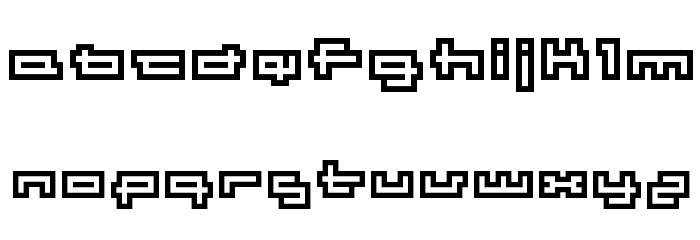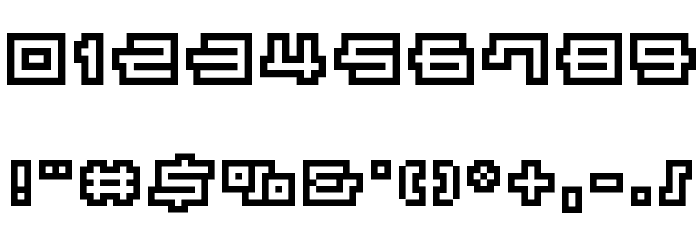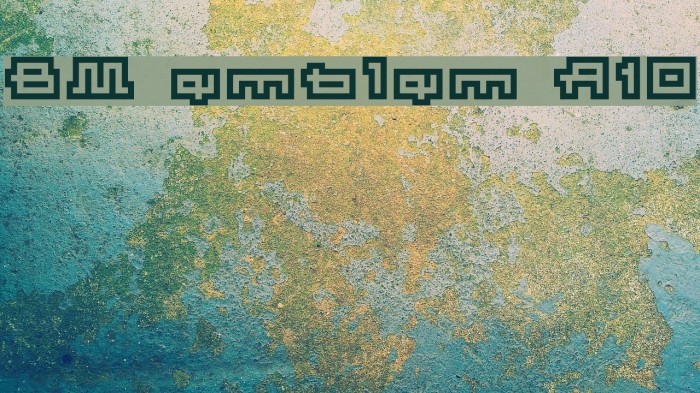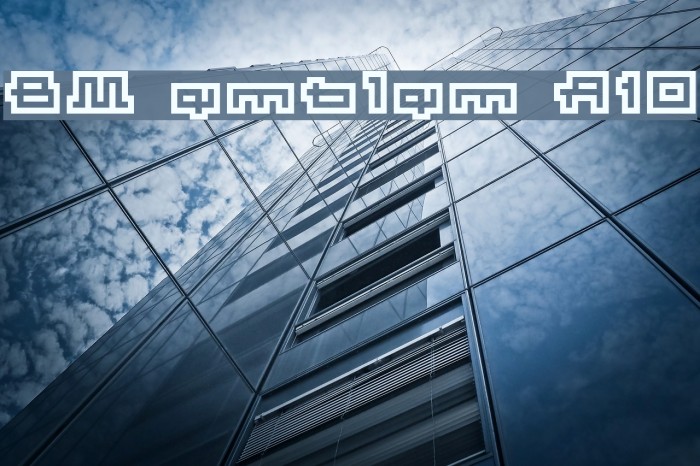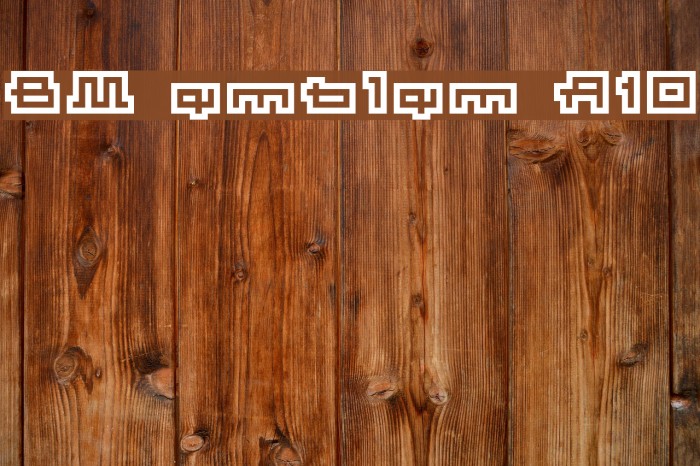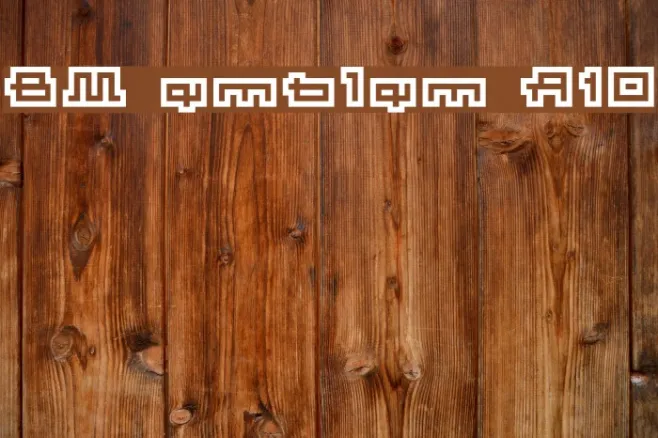
BM emblem A10 Font
This font features a bold, geometric design with a pixelated, blocky appearance reminiscent of retro video games. Each character is constructed with a consistent thickness, creating a uniform look across all letters and numbers. The style is distinctly modern and digital, with sharp angles and a grid-like structure that gives it a unique, tech-inspired aesthetic. The characters are evenly spaced, maintaining a balanced and cohesive visual flow. This font is ideal for projects that require a futuristic or nostalgic digital theme, such as video game graphics, tech branding, or digital art.
A bold, pixelated font with a retro, digital aesthetic.
- Proposed Projects: Ideal for video game graphics, tech branding, digital art, and retro-themed designs.